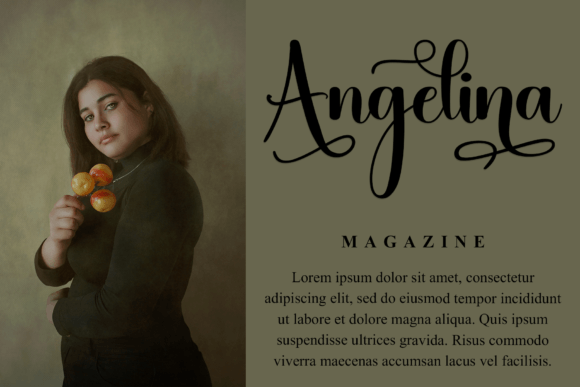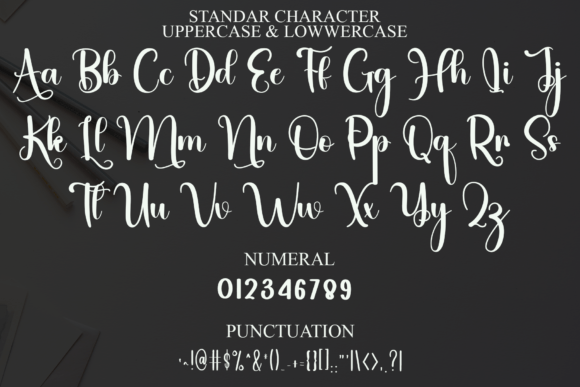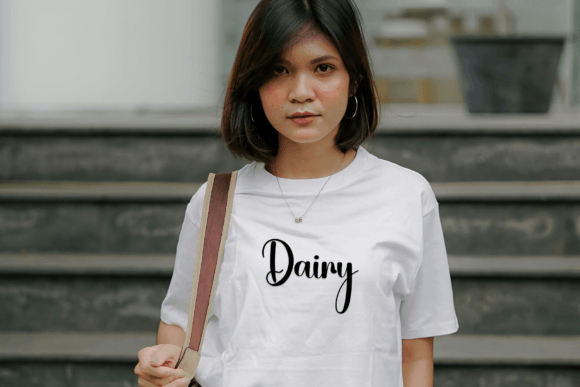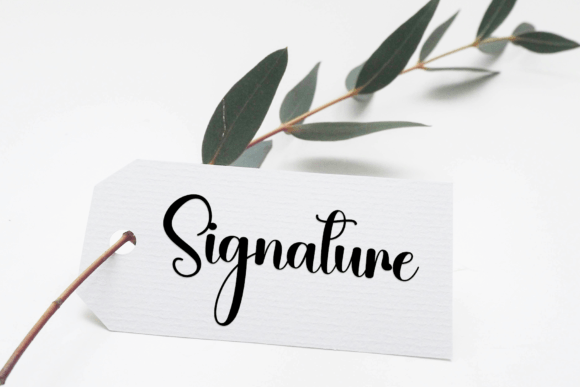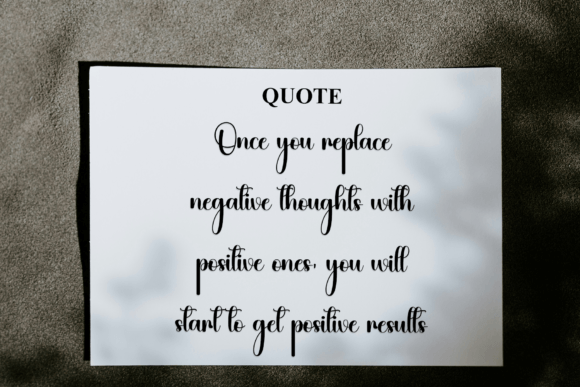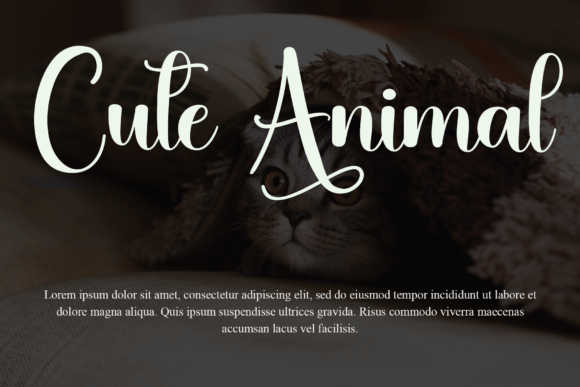
Discover the Elegance of Animal Font: A Timeless Choice for Designers and Crafters
In the world of typography, few fonts manage to capture the essence of elegance and timelessness. Animal Font is one such gem that has been making waves in the design community. This delicate, elegant, and versatile font is perfect for designers and crafters looking to add a touch of sophistication to their creative projects. In this article, we’ll dive into the features and benefits of Animal Font, and explore how it can elevate your designs to the next level.
The Characteristics of Animal Font
Animal Font boasts beautiful and well-balanced characters that make it an excellent match for a wide range of designs. Its elegant and refined aesthetic is perfect for projects that require a touch of sophistication. Whether you’re working on a logo, branding materials, or digital content, Animal Font is sure to impress. The font’s versatility is one of its standout features, allowing you to pair it with various design styles and themes.
One of the key advantages of Animal Font is its PUA (Private Use Area) coding. This means that you can easily access all the amazing glyphs and ligatures, making it simple to add a unique touch to your designs. The PUA coding allows for effortless navigation and selection of the desired characters, saving you time and effort in the design process.
Why Designers and Crafters Love Animal Font
So, what makes Animal Font a favorite among designers and crafters? For starters, its delicate and elegant aesthetic makes it perfect for creating sophisticated and refined designs. The font’s versatility also allows it to be used across various design projects, from logos and branding materials to digital content and craft projects.
Another reason designers and crafters love Animal Font is its ability to add a touch of personality to their designs. The font’s unique glyphs and ligatures allow for creative experimentation, enabling designers to push the boundaries of their imagination. Whether you’re looking to create a bold statement or a subtle nuance, Animal Font provides the perfect tools to bring your vision to life.
How to Use Animal Font in Your Designs
To get the most out of Animal Font, experiment with different design styles and themes. Pair the font with bold colors and striking imagery for a dramatic effect, or use it with more subtle design elements for a refined look. The versatility of Animal Font means that it can be used in a wide range of design projects, from minimalist designs to more elaborate and intricate creations.
Tips and Tricks for Working with Animal Font
To help you get the most out of Animal Font, here are a few tips and tricks to keep in mind:
- Experiment with different font sizes and styles to find the perfect balance for your design.
- Use the glyphs and ligatures to add a unique touch to your designs.
- Pair Animal Font with other fonts to create a striking contrast.
- Don’t be afraid to try new and innovative design ideas – Animal Font is perfect for creative experimentation.
Animal Font is a timeless and elegant font that is perfect for designers and crafters looking to add a touch of sophistication to their creative projects. With its beautiful and well-balanced characters, PUA coding, and versatility, Animal Font is an excellent choice for a wide range of design projects. Whether you’re working on a logo, branding materials, or digital content, Animal Font is sure to impress. So why not give it a try and see how it can elevate your designs to the next level?
In conclusion, Animal Font is a delicate, elegant, and timeless font that is perfect for designers and crafters looking to add a touch of sophistication to their creative projects. Its versatility, PUA coding, and range of glyphs and ligatures make it an excellent choice for a wide range of design projects. With Animal Font, you can bring your creative ideas to life and create stunning designs that leave a lasting impression.